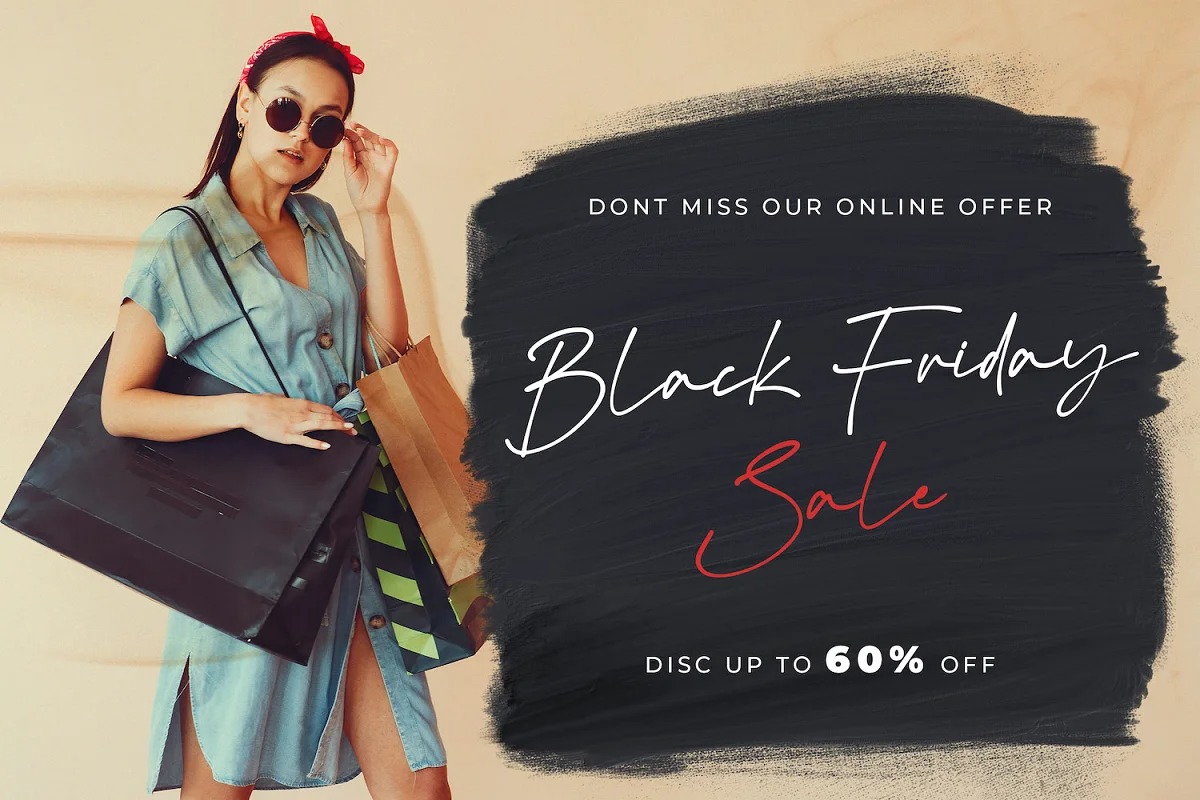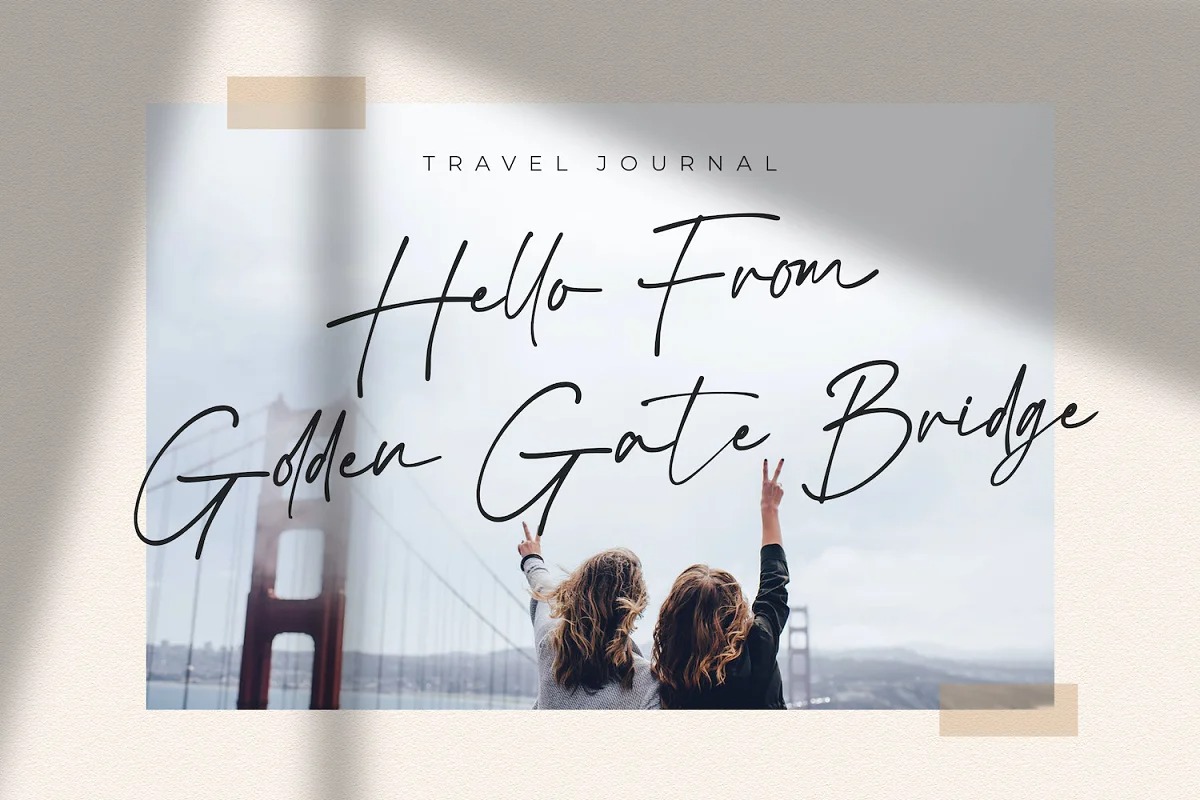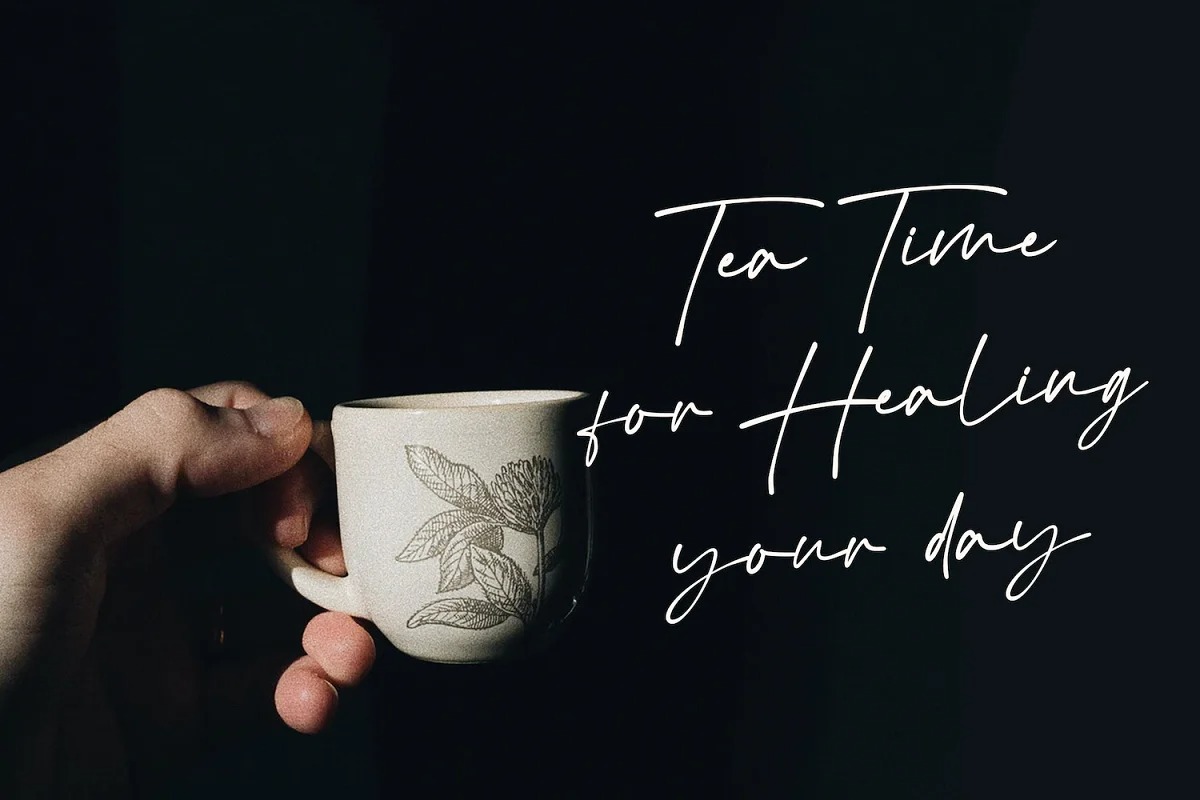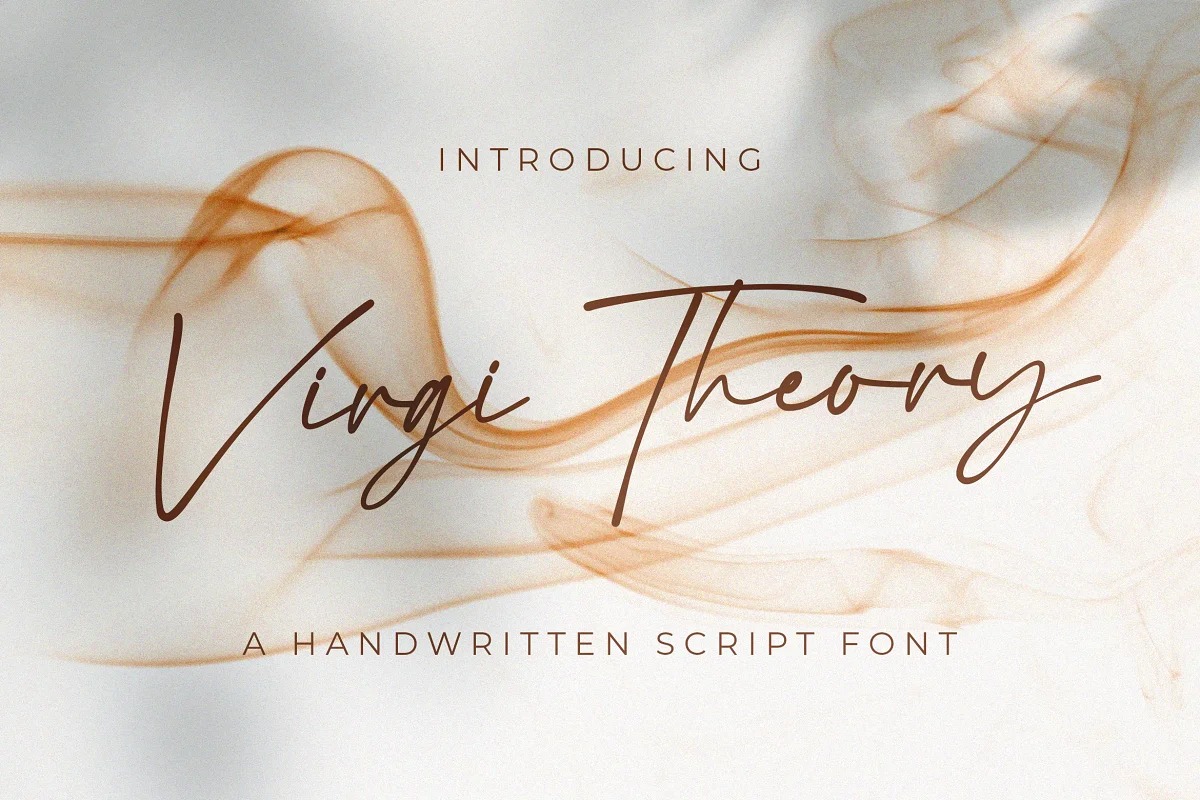
Virgi Theory Handwritten Font
This font is a signature style script writing with a natural and modern flow. It has beautiful and well balanced characters and as a result, it matches a wide pool of designs. Add it to your most creative ideas and notice how it makes them come alive!